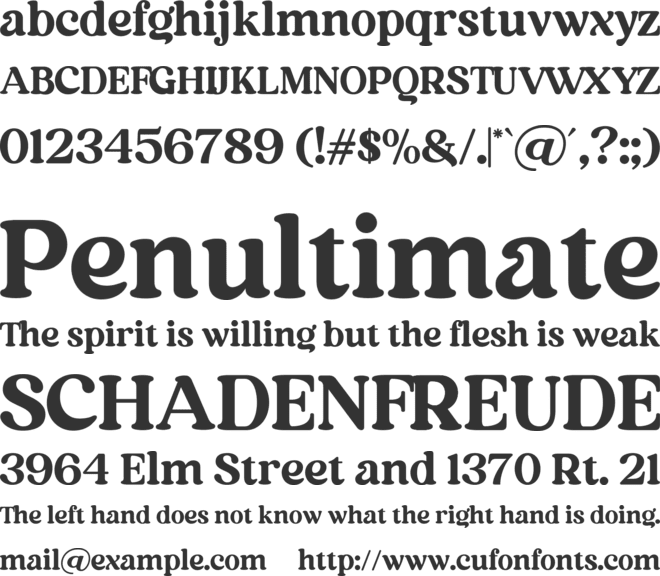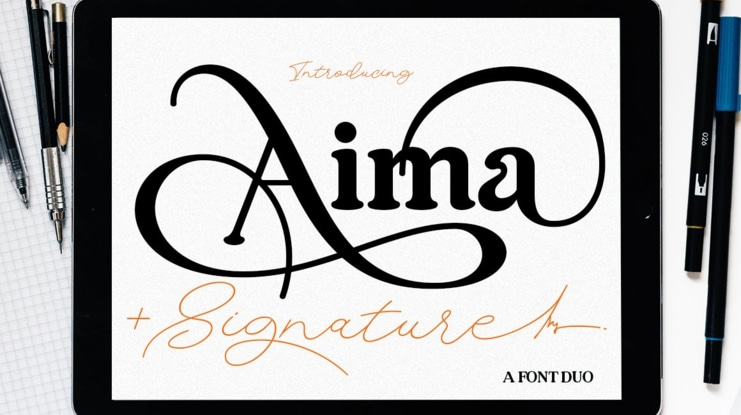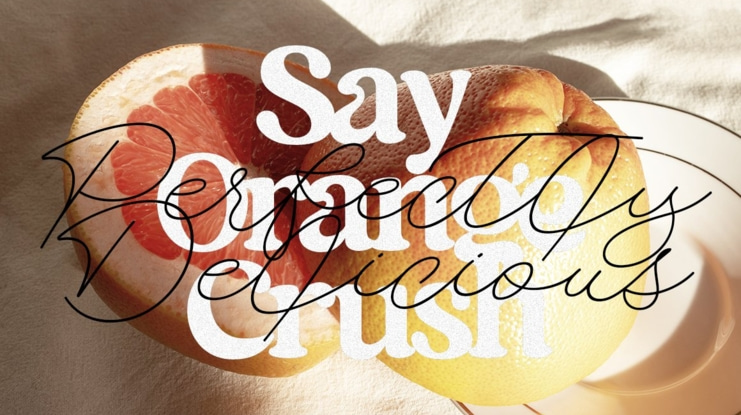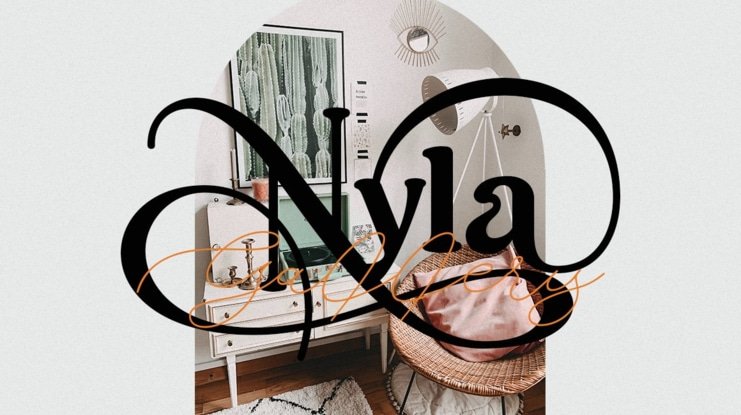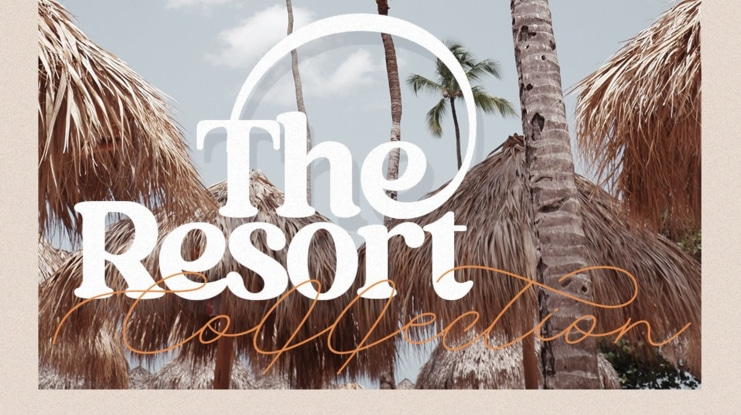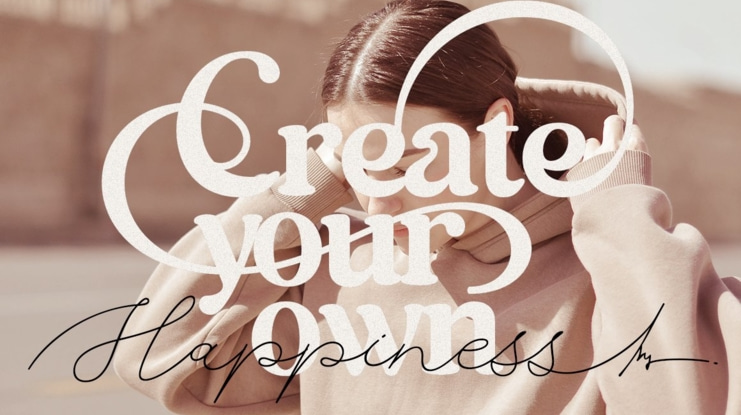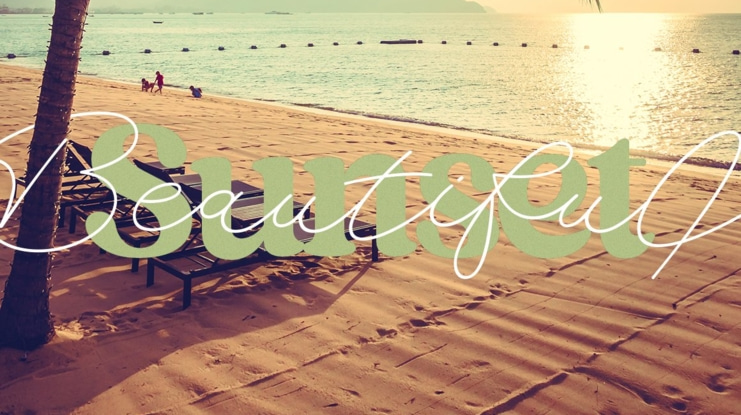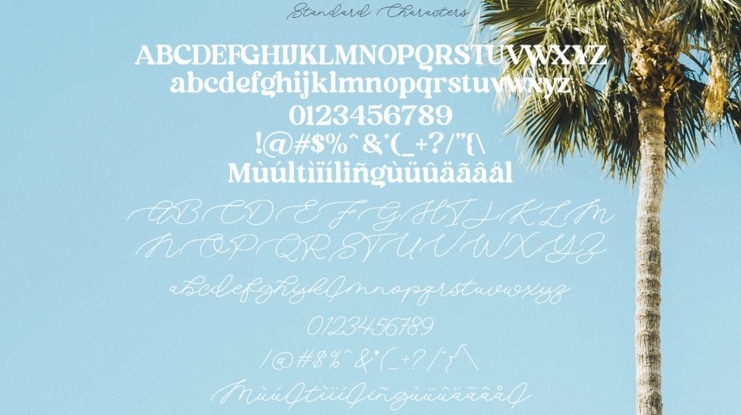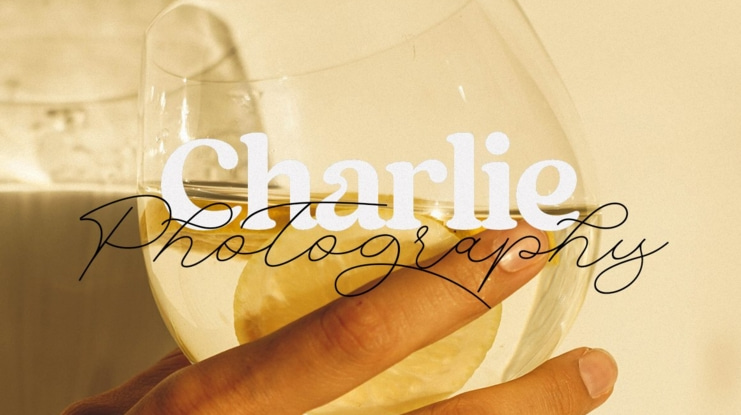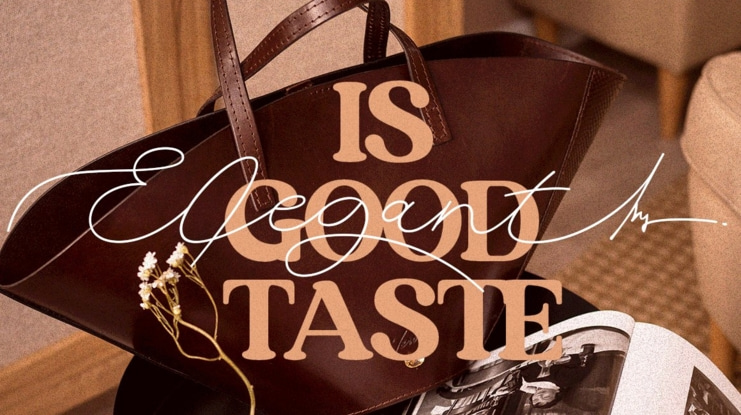
Aima Font Duo
Introducing Aima Font Duo, a delightful signature font that exudes a relaxed and energetic vibe with its playful baseline. Alongside, we offer Aima Display, enabling you to seamlessly blend and customize it to complement your artistic endeavors. These fonts add a genuine touch of authenticity to your designs, making them ideal for branding, logos, greeting cards, wedding stationery, quotes, and much more.